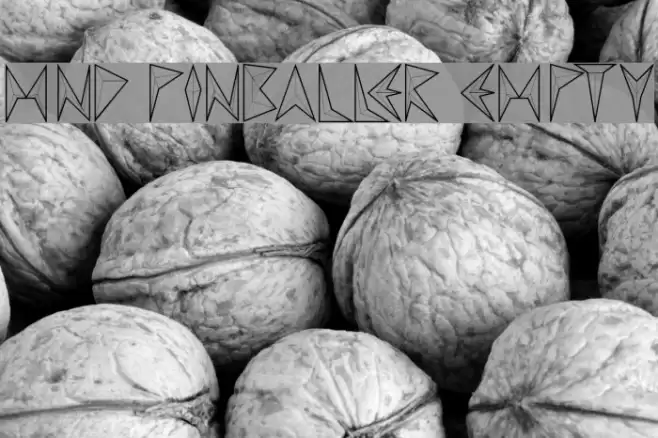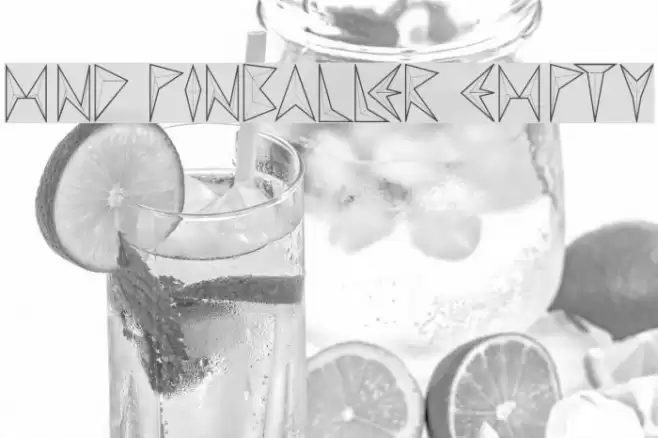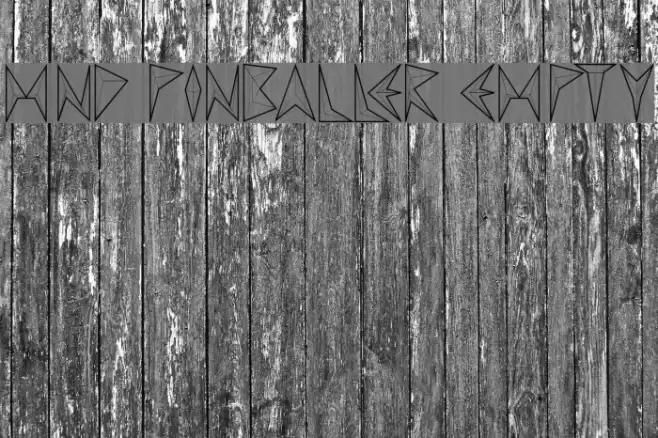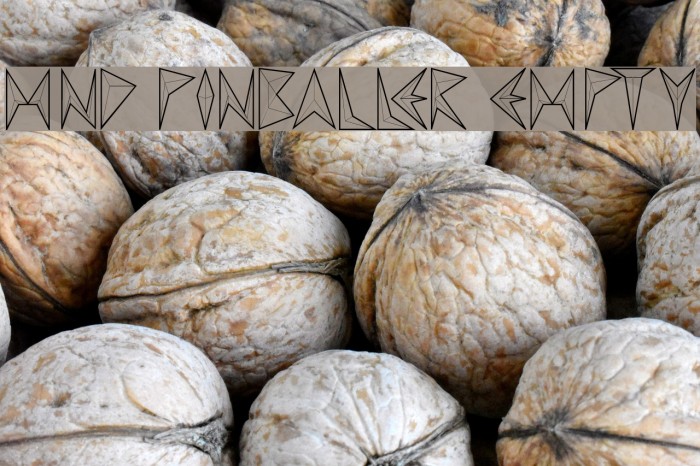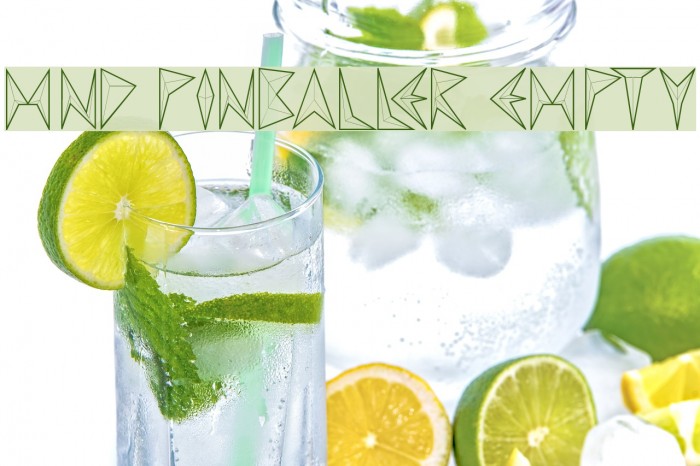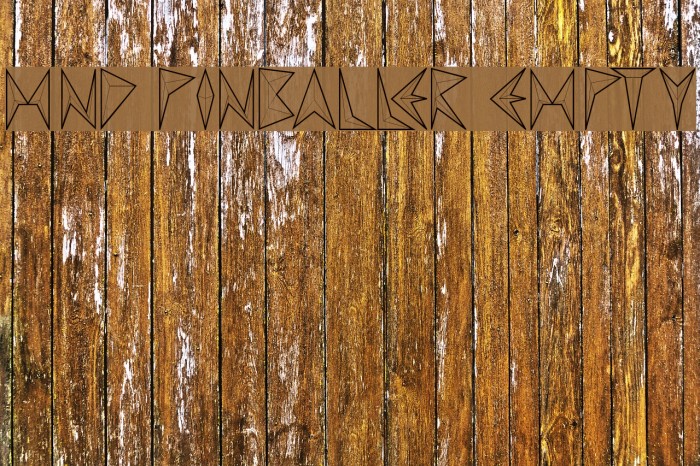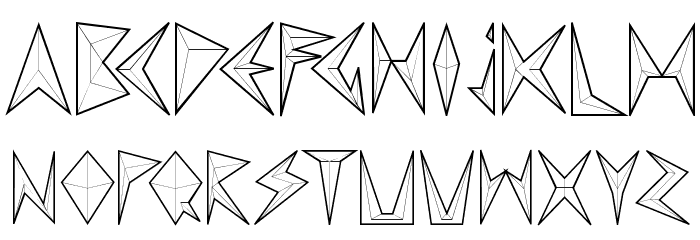
MND Pinballer empty Font
MND Pinballer empty Description
This font features a highly geometric and angular design, reminiscent of futuristic or sci-fi themes. Each letter is constructed with sharp lines and pointed edges, creating a dynamic and edgy appearance. The uppercase and lowercase letters share a consistent style, emphasizing symmetry and boldness. The numbers are represented as solid rectangles, maintaining the geometric theme. This font lacks traditional curves, opting instead for a more mechanical and structured look. The overall design is striking and unconventional, making it suitable for projects that require a modern and avant-garde aesthetic.
A geometric, angular font with a futuristic and edgy style from Crazy fonts.
- Proposed Projects: Ideal for sci-fi themed posters, video game titles, futuristic branding, and digital artwork.